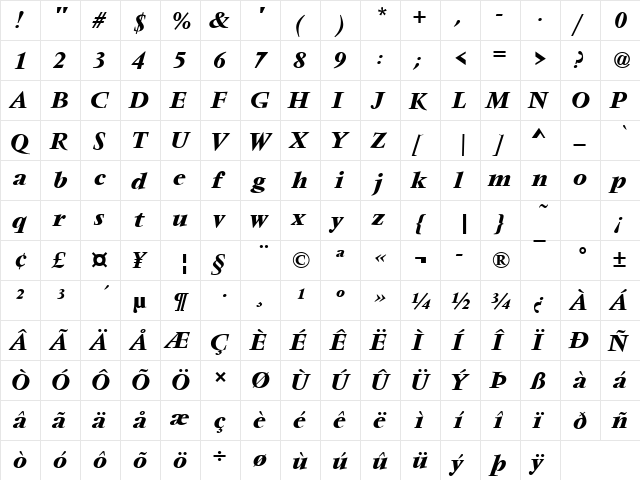
VendomeTMed Italic Font Preview
VendomeTMed Italic
VendomeTMed Italic Font Details
Design Context for VendomeTMed Typeface
VendomeTMed takes a measured approach to typography — its balanced proportions and neutral character make it a reliable workhorse for both digital and print work. The dynamic lean of this cut emphasises speed and emphasis in any layout.
Pro Tip: Try VendomeTMed for annotation and caption copy alongside an upright companion — the contrast in angle creates a dynamic but ordered typographic system.